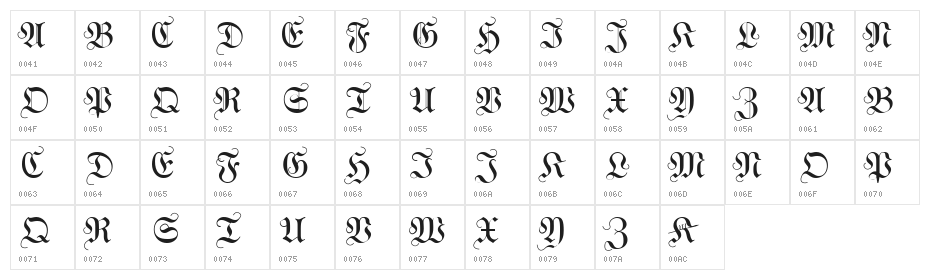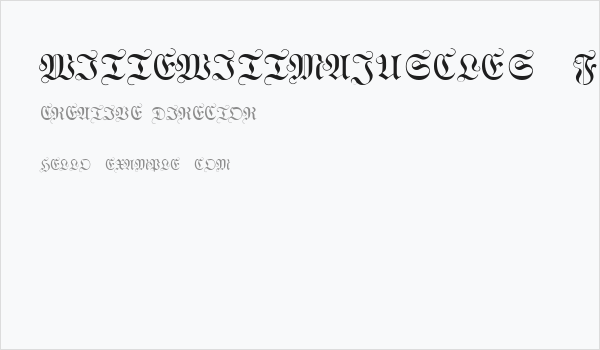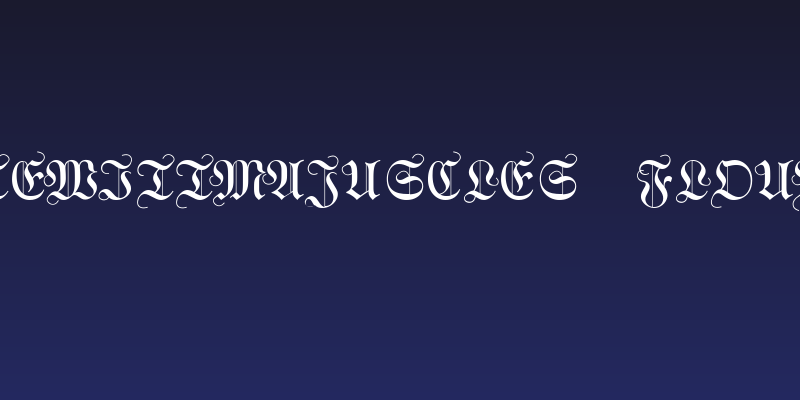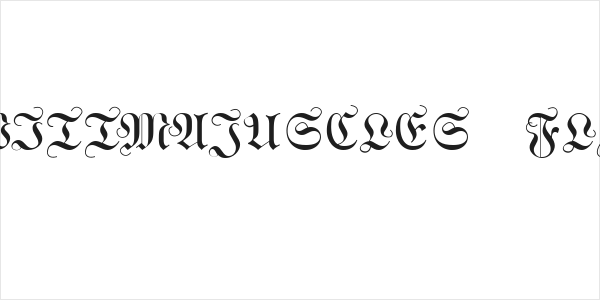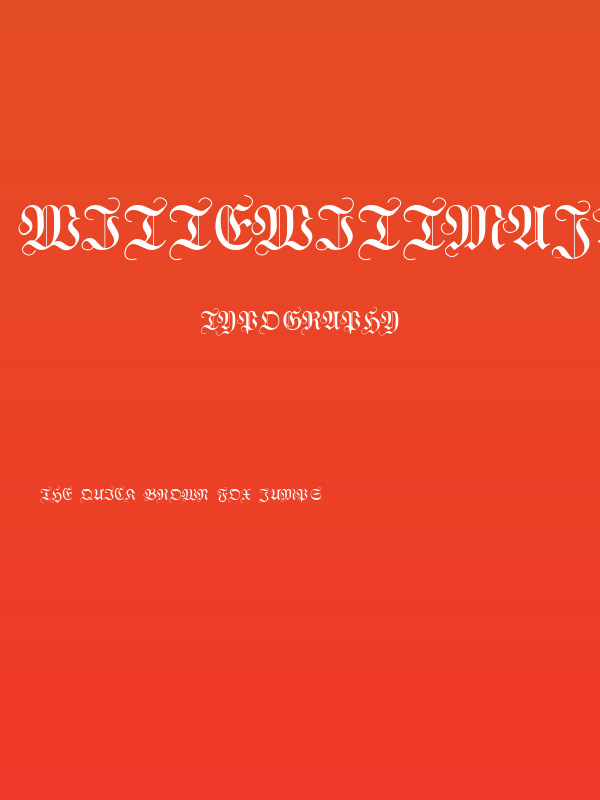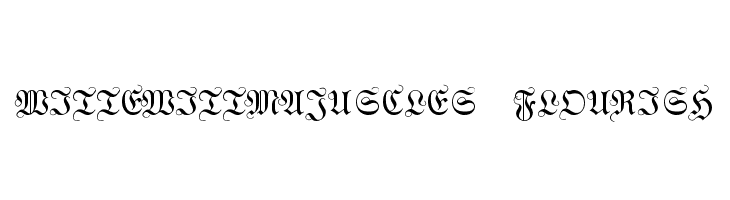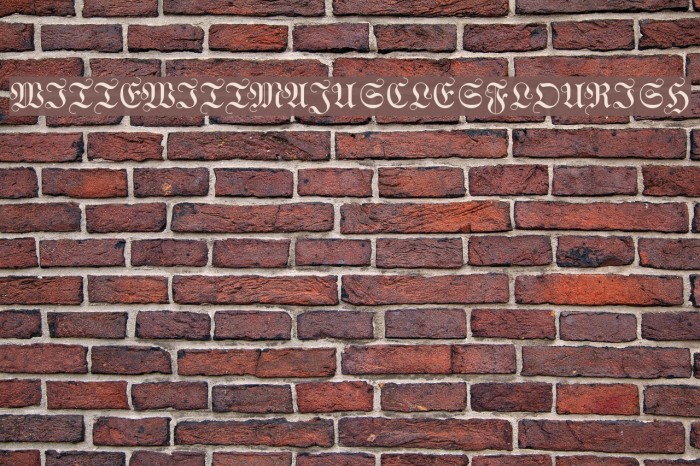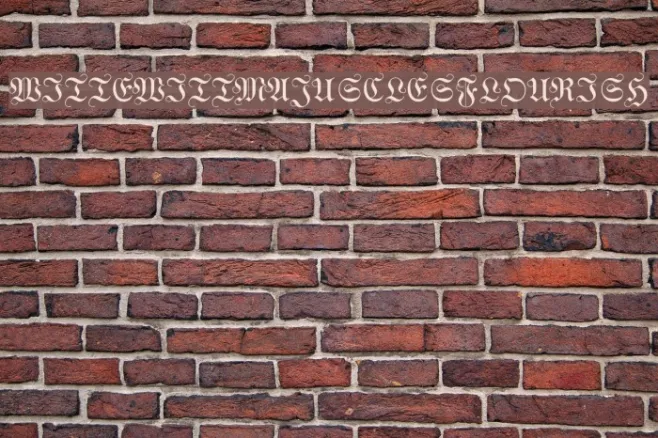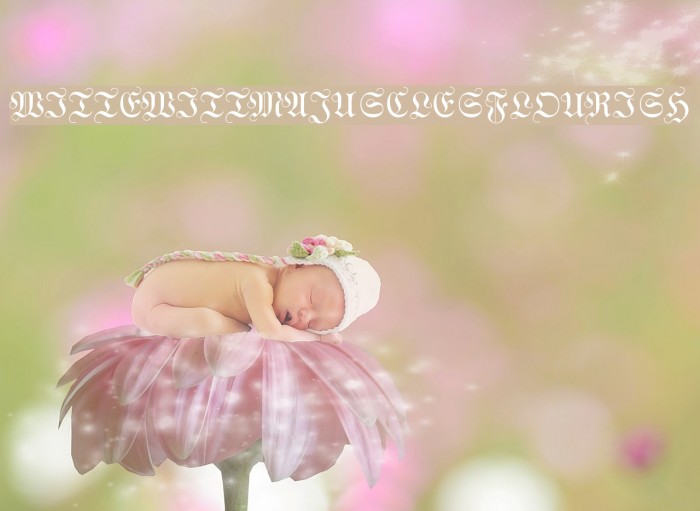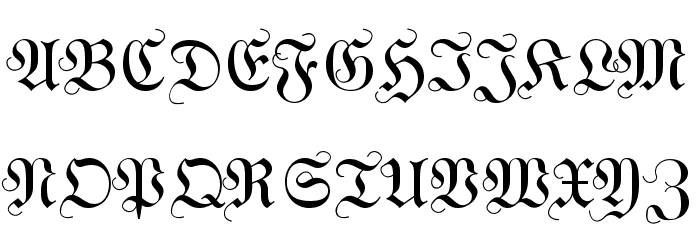
WittewittMajuscles-Flourish Font
WittewittMajuscles-Flourish Description
This font features an intricate and ornate design, characterized by elaborate flourishes and decorative elements that extend from each letter. The style is reminiscent of traditional calligraphy with a modern twist, offering a sense of elegance and sophistication. The letters are bold and have a high contrast between thick and thin strokes, enhancing their visual impact. This font is primarily uppercase, with each character uniquely designed to stand out while maintaining a cohesive look across the alphabet.
| Proposed Projects | Ideal for wedding invitations, luxury branding, certificates, and decorative headings. |